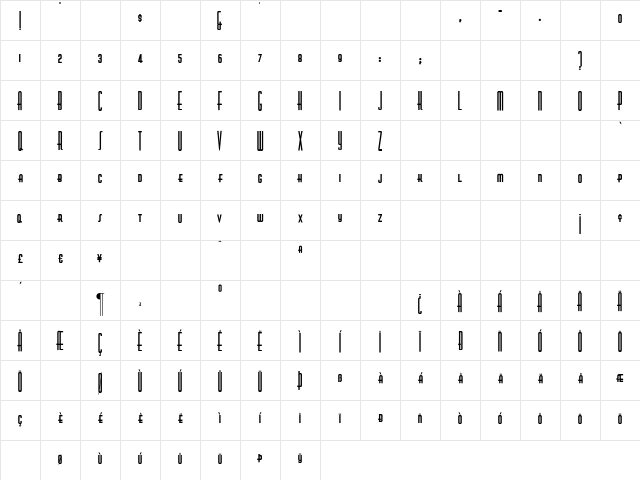
Nickodemus-Extremus Regular
Design Context for Nickodemus-Extremus
Nickodemus-Extremus is a composed and adaptable typeface that performs quietly and consistently across a wide range of design contexts.
Pro Tip: Use Nickodemus-Extremus in both headline and body roles to test its range before committing to a single application.